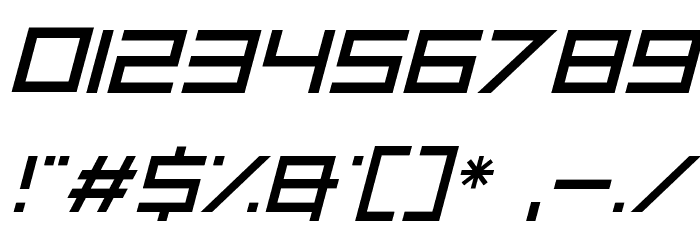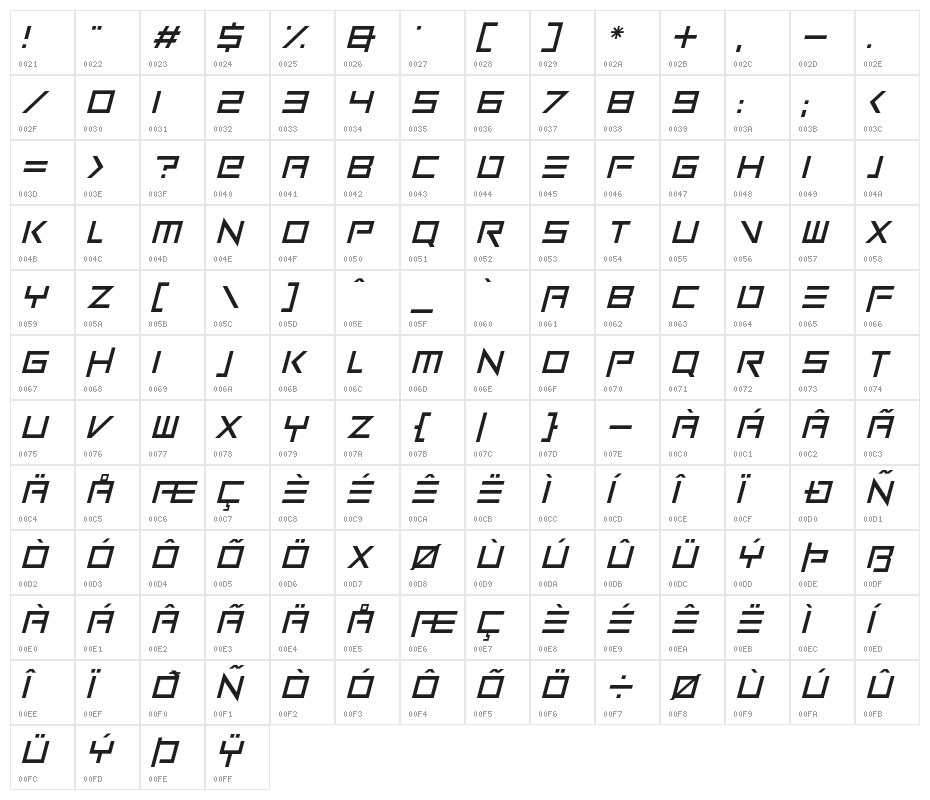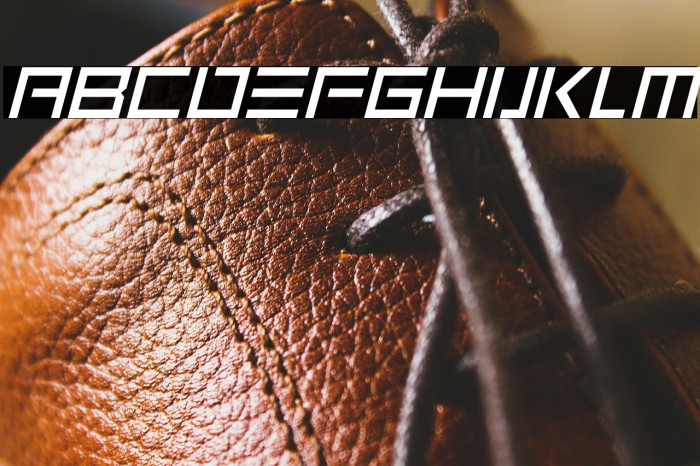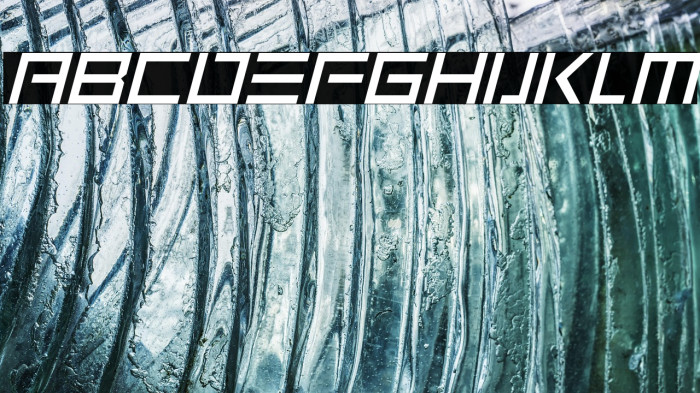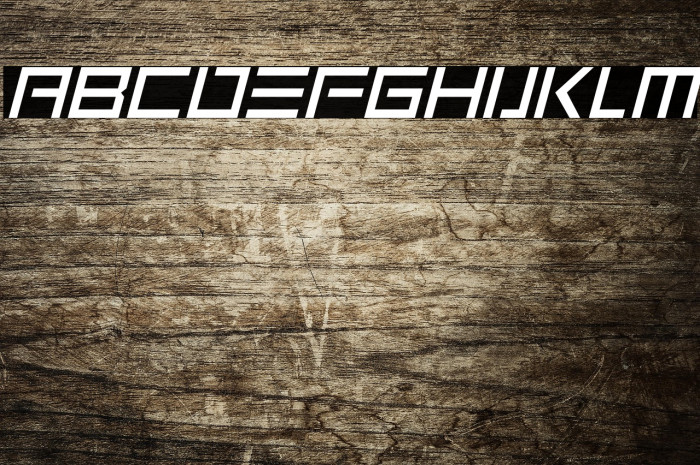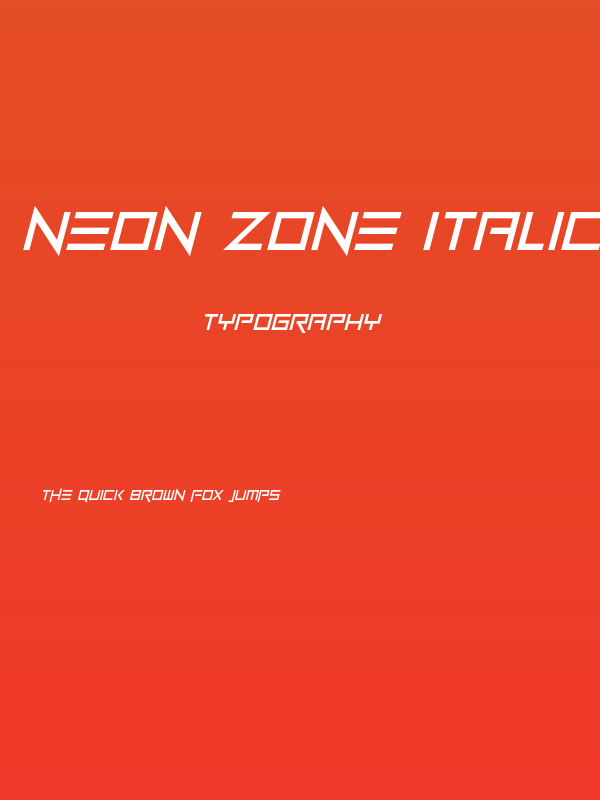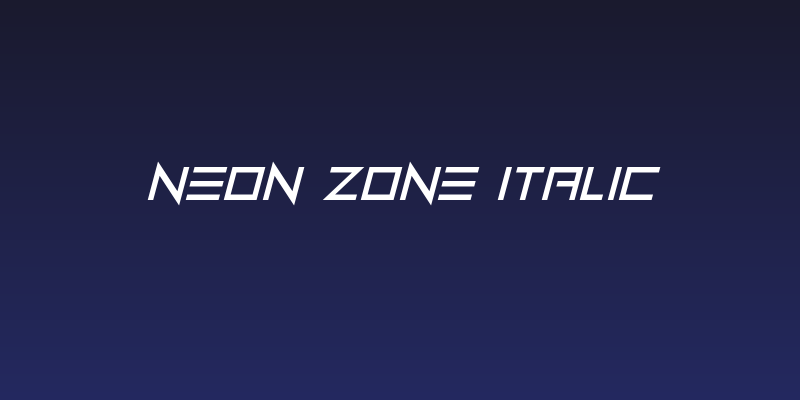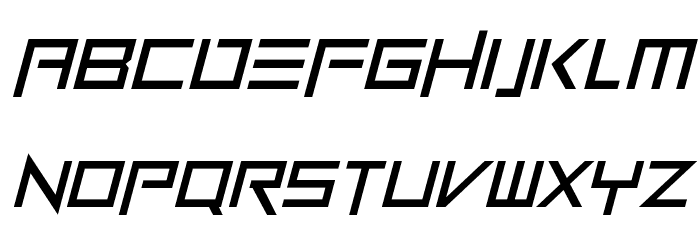
Neon Zone Italic Font
Neon Zone Italic Description
This font exhibits a futuristic and dynamic style with its italicized and angular letterforms. The characters are designed with sharp edges and a consistent slant, giving a sense of motion and modernity. The uppercase and lowercase letters maintain a uniform height, contributing to a cohesive appearance. Numbers and special characters follow the same angular and slanted design, ensuring a seamless integration across different text elements. The font's geometric structure and clean lines make it suitable for projects that require a contemporary and edgy look.
| Proposed Projects | Ideal for technology branding, sci-fi themed designs, video game titles, and modern advertising. |